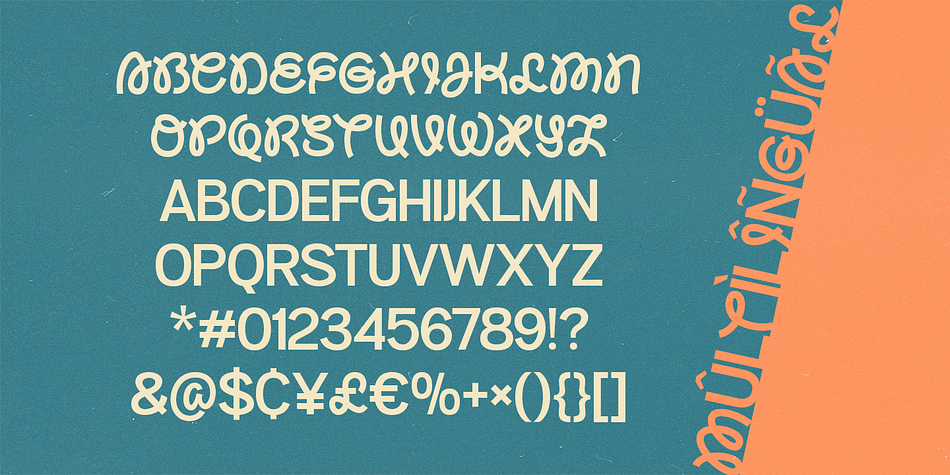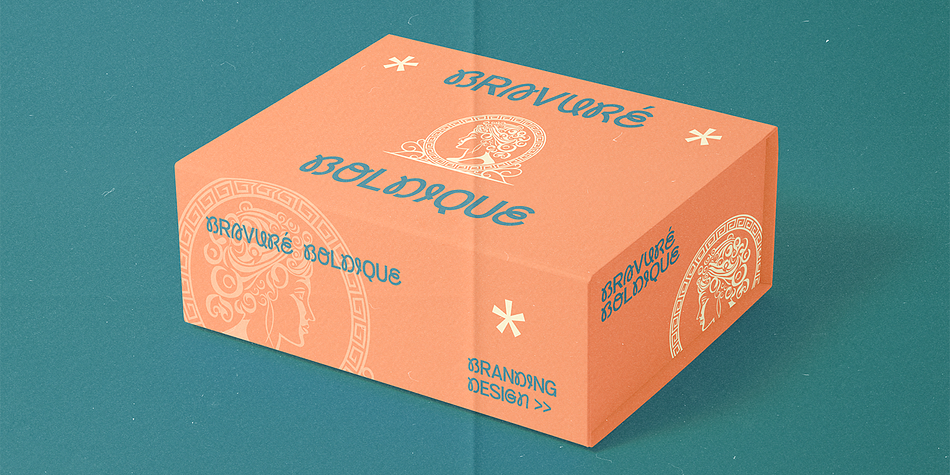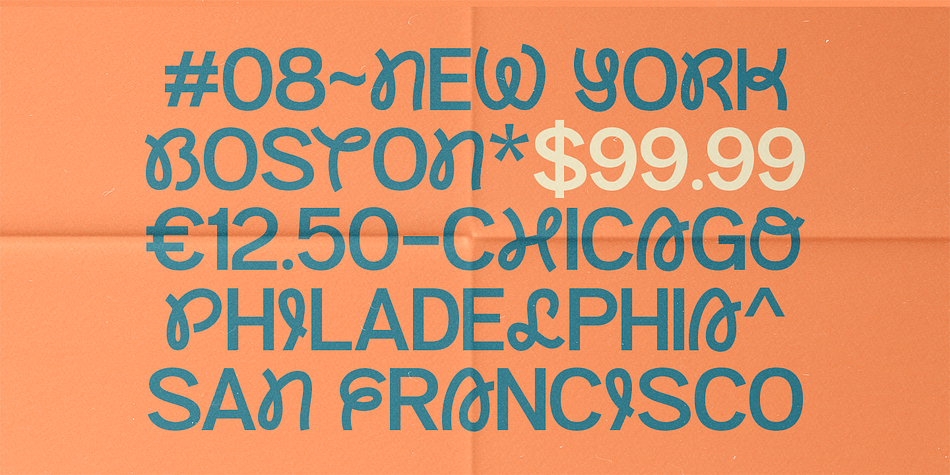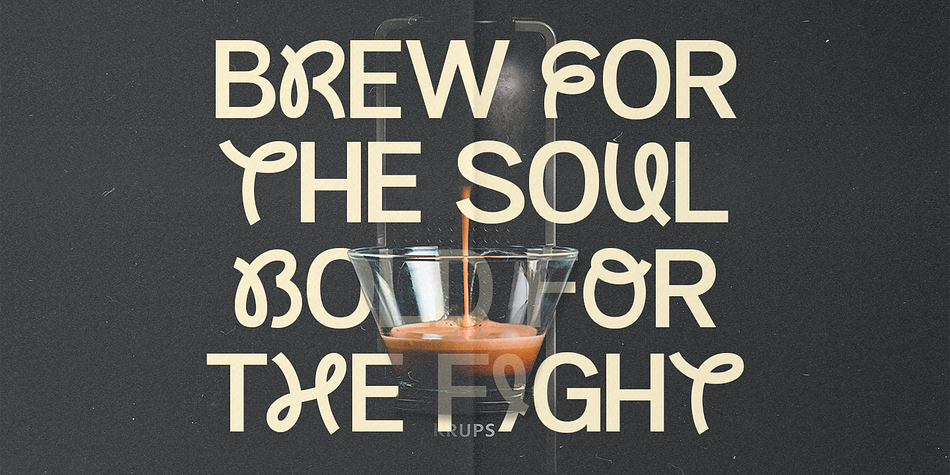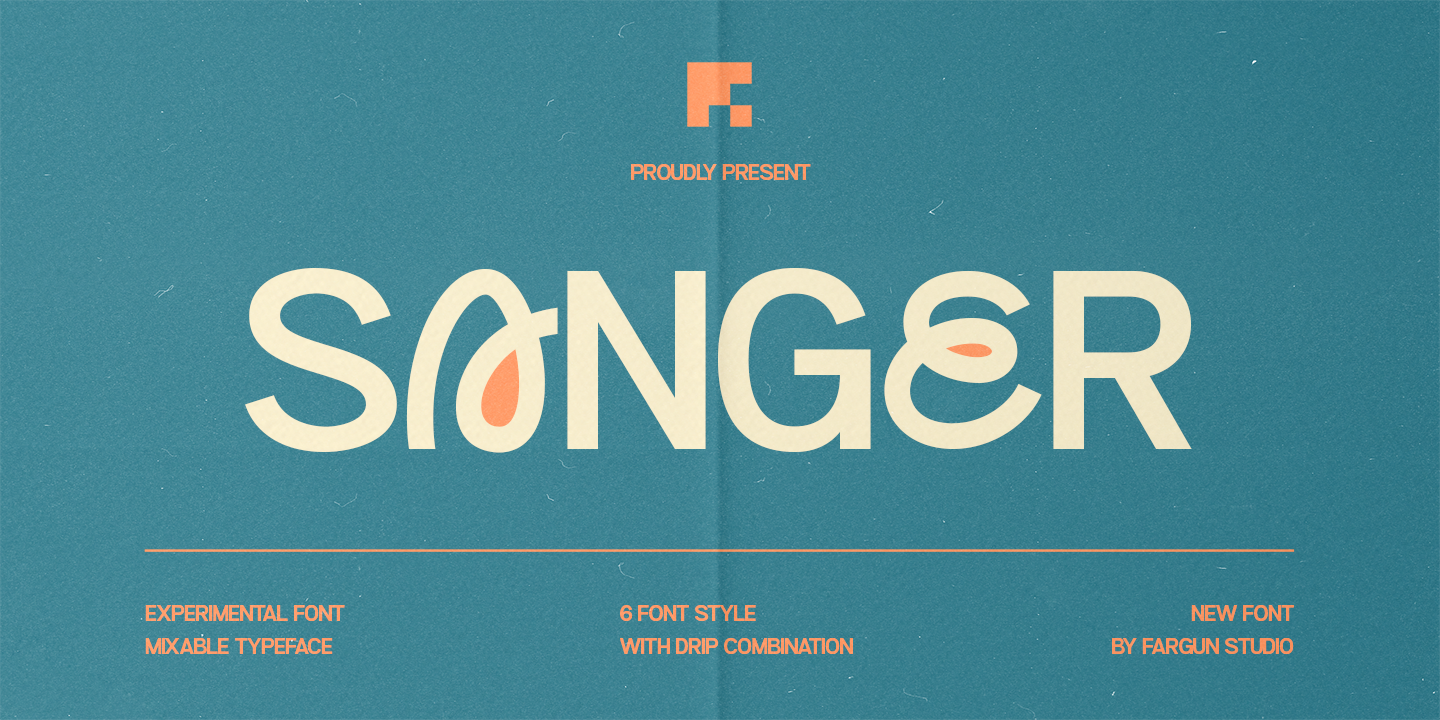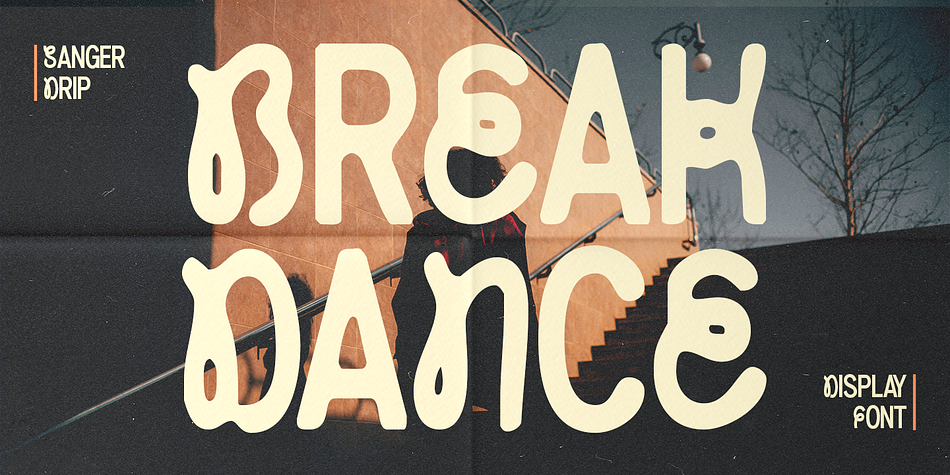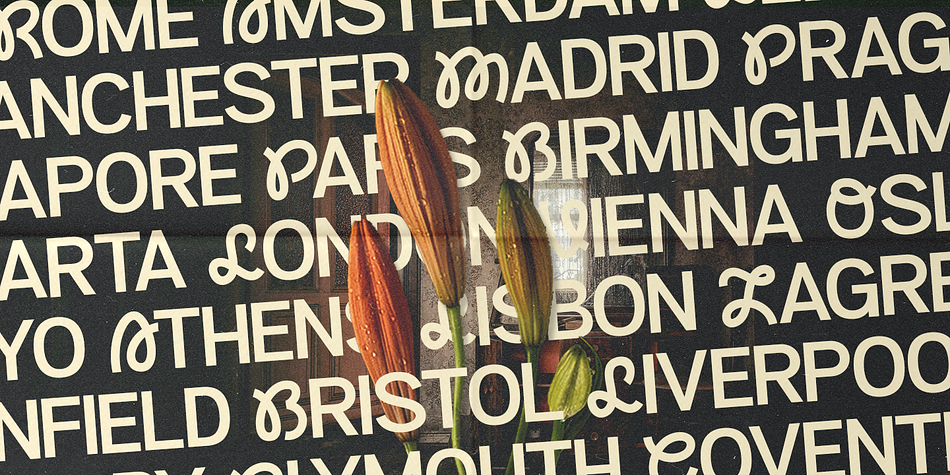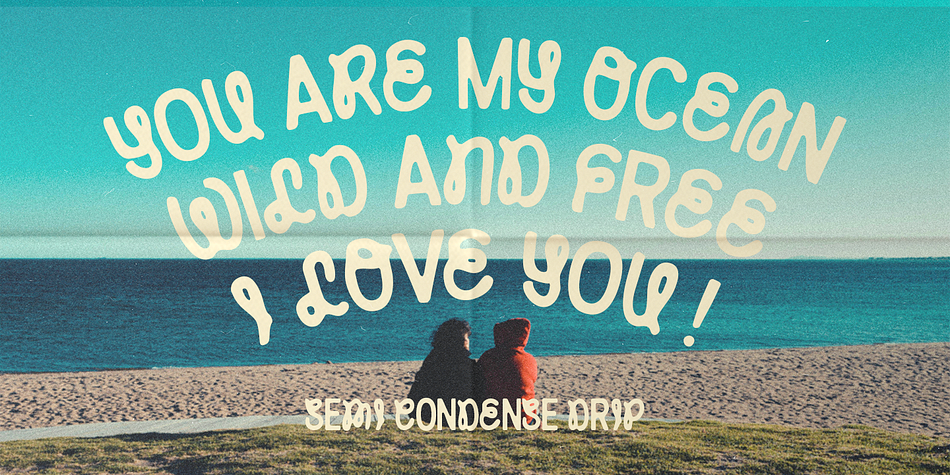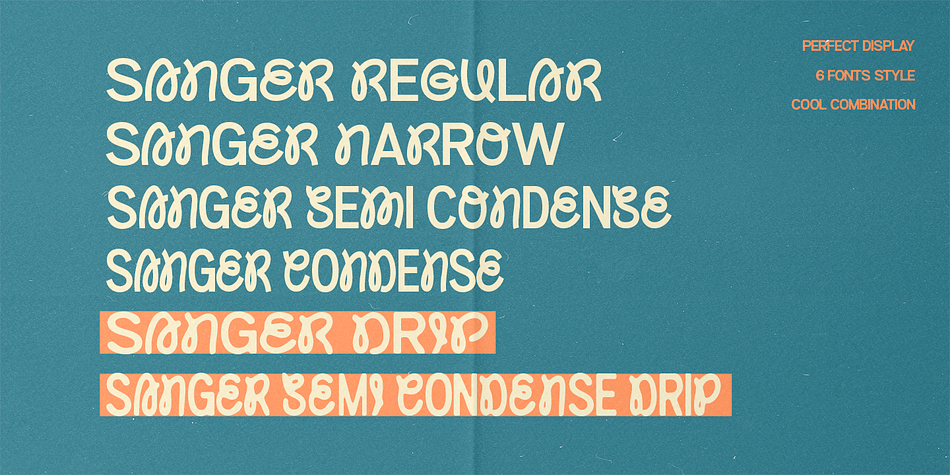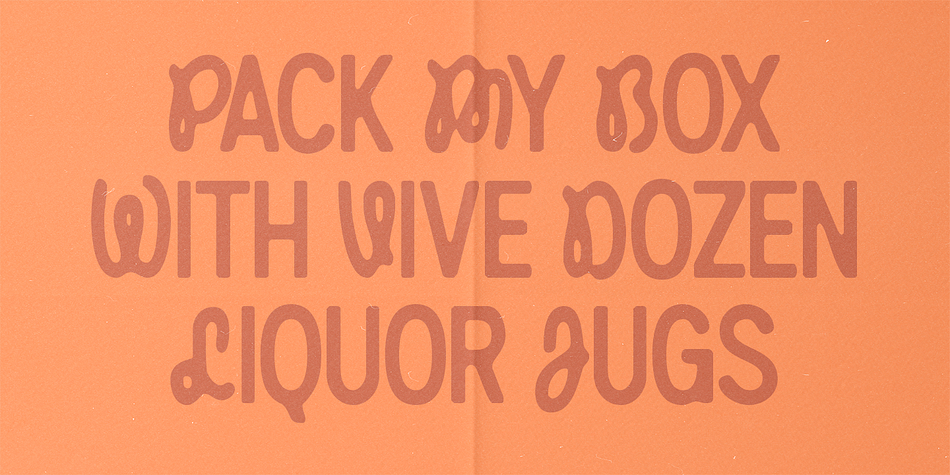
Sanger
Sanger is a display font family. This typeface has six styles and was published by Fargun Studio.
Sanger Font is an experimental typeface collection that brings together six distinct and contrasting styles. Among them are two eye-catching drip styles that add a bold, edgy twist—making this font truly stand out.
With built-in multi-language support, Sanger Font makes it easy to design across different languages and cultures. Whether you’re working on posters, logos, branding, social media graphics, books, or magazines, this font is a perfect choice to bring a unique and creative flair to your projects.
Sanger Font featured 6 font styles; regular, narrow, semi condense, drip, semi condense drip